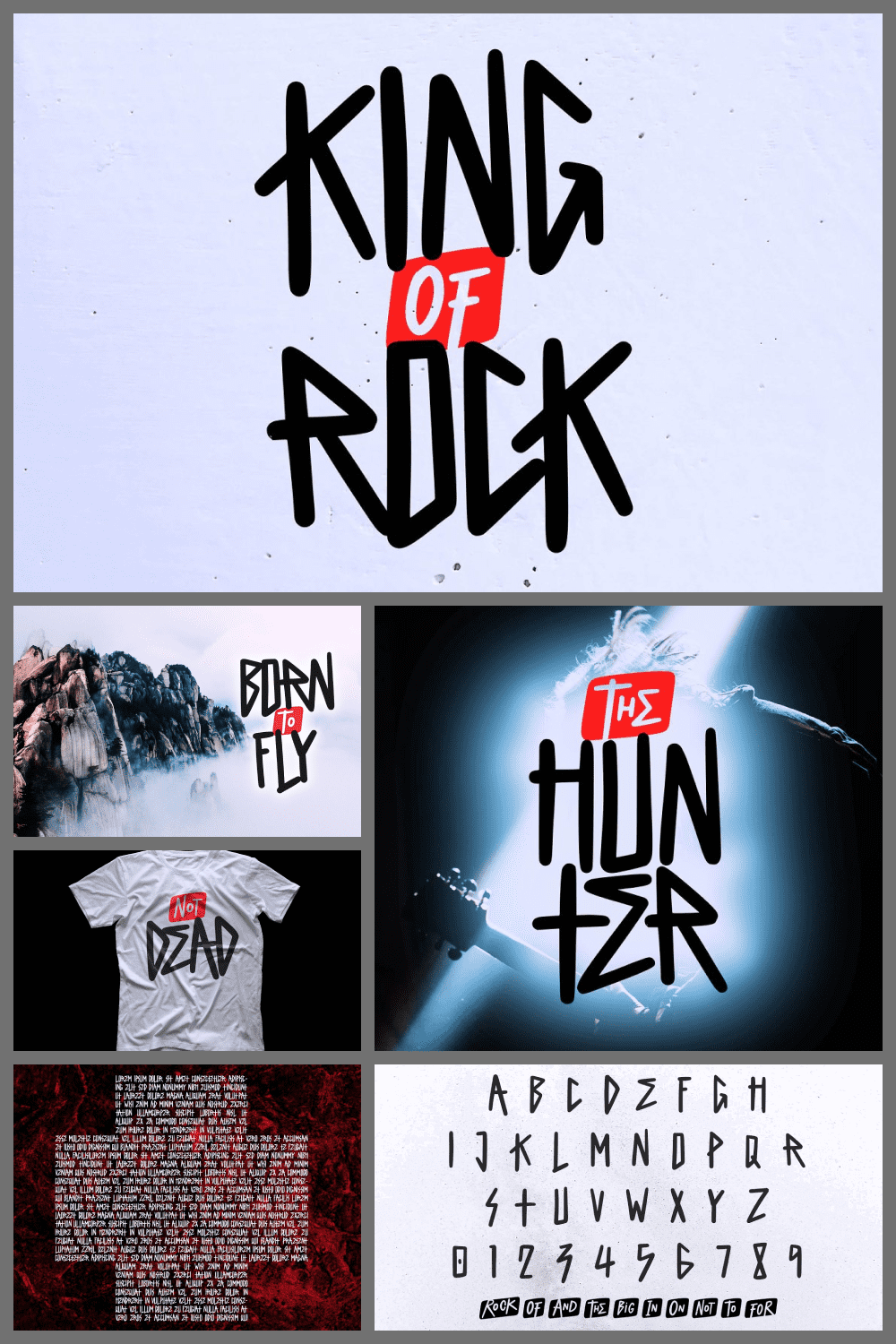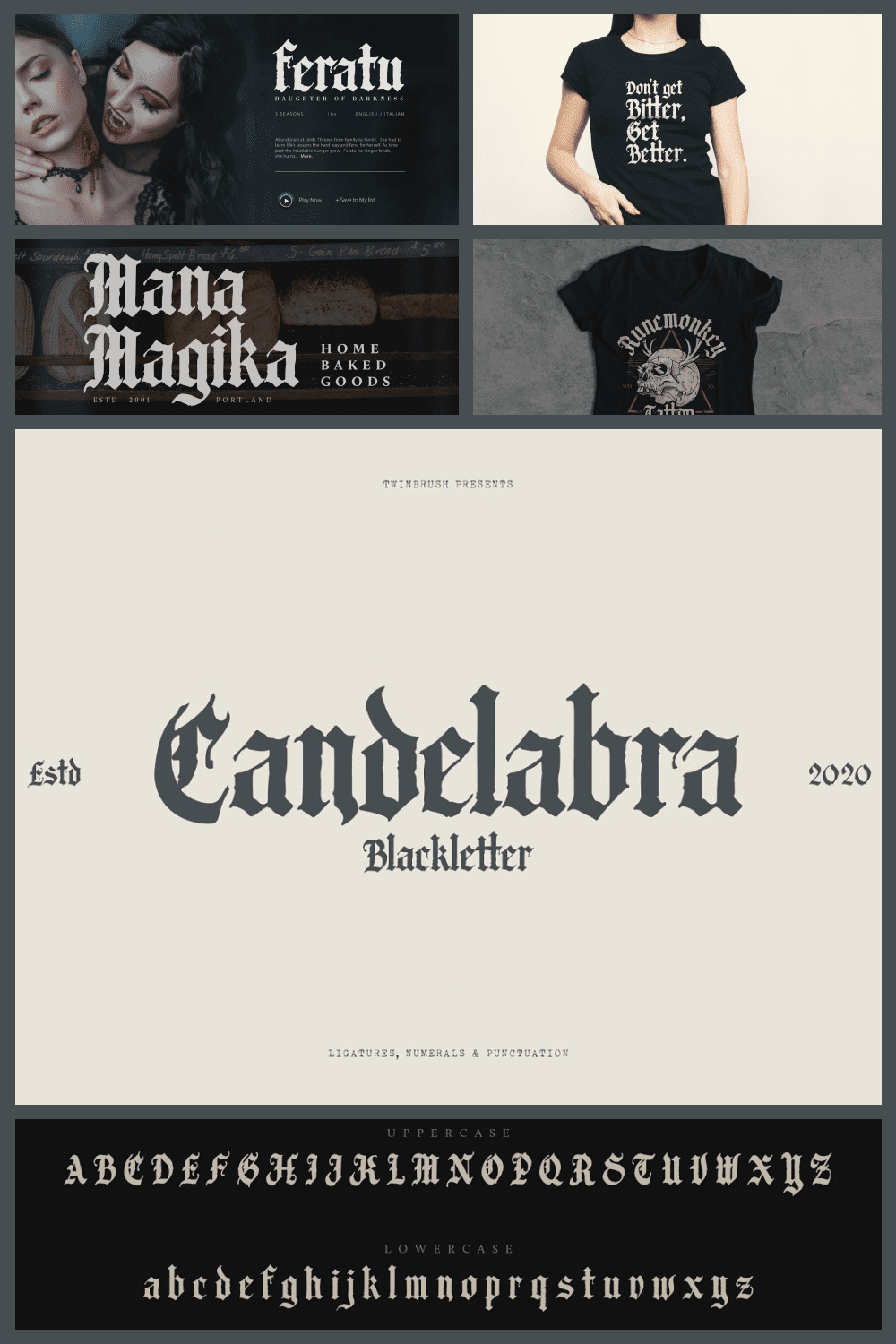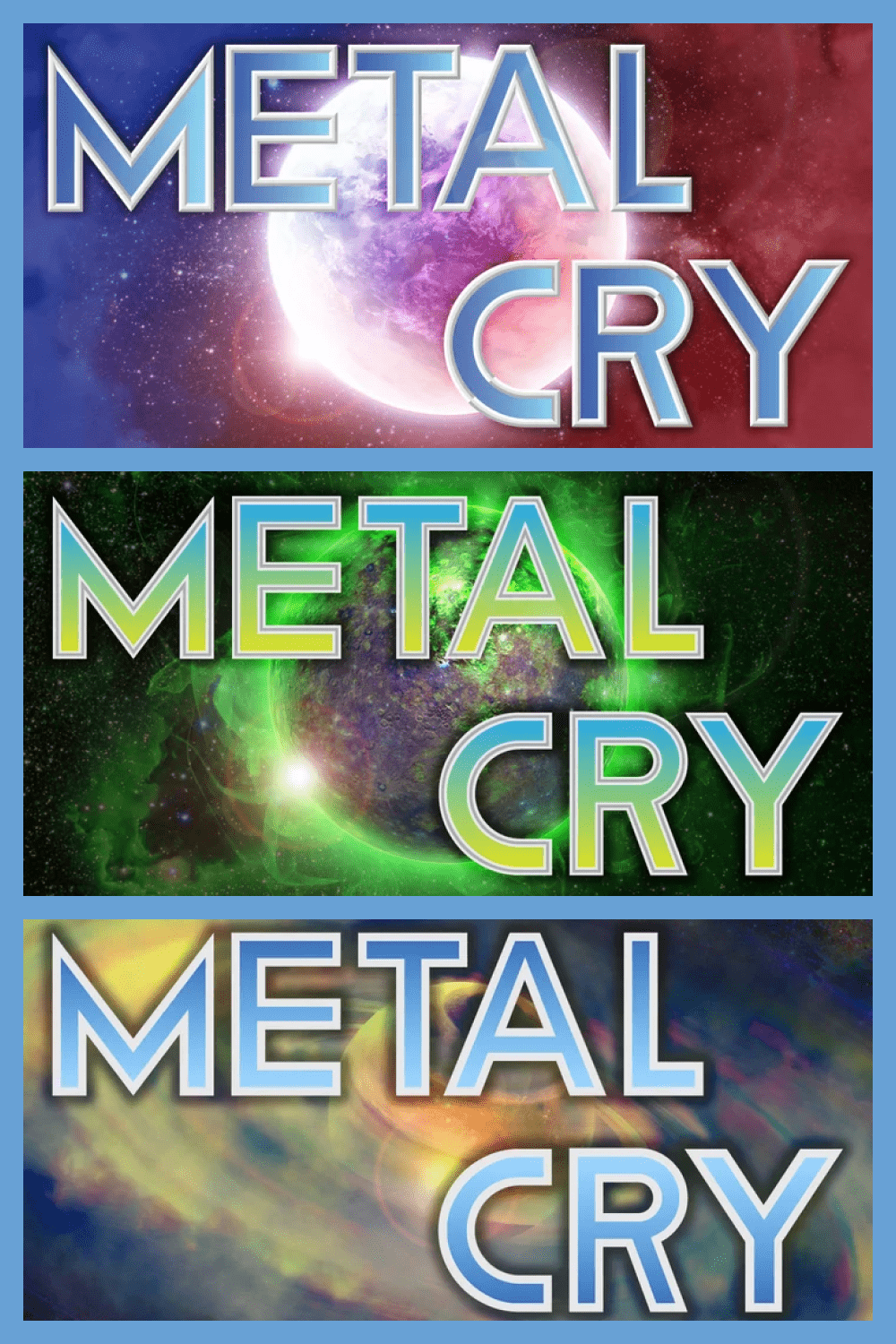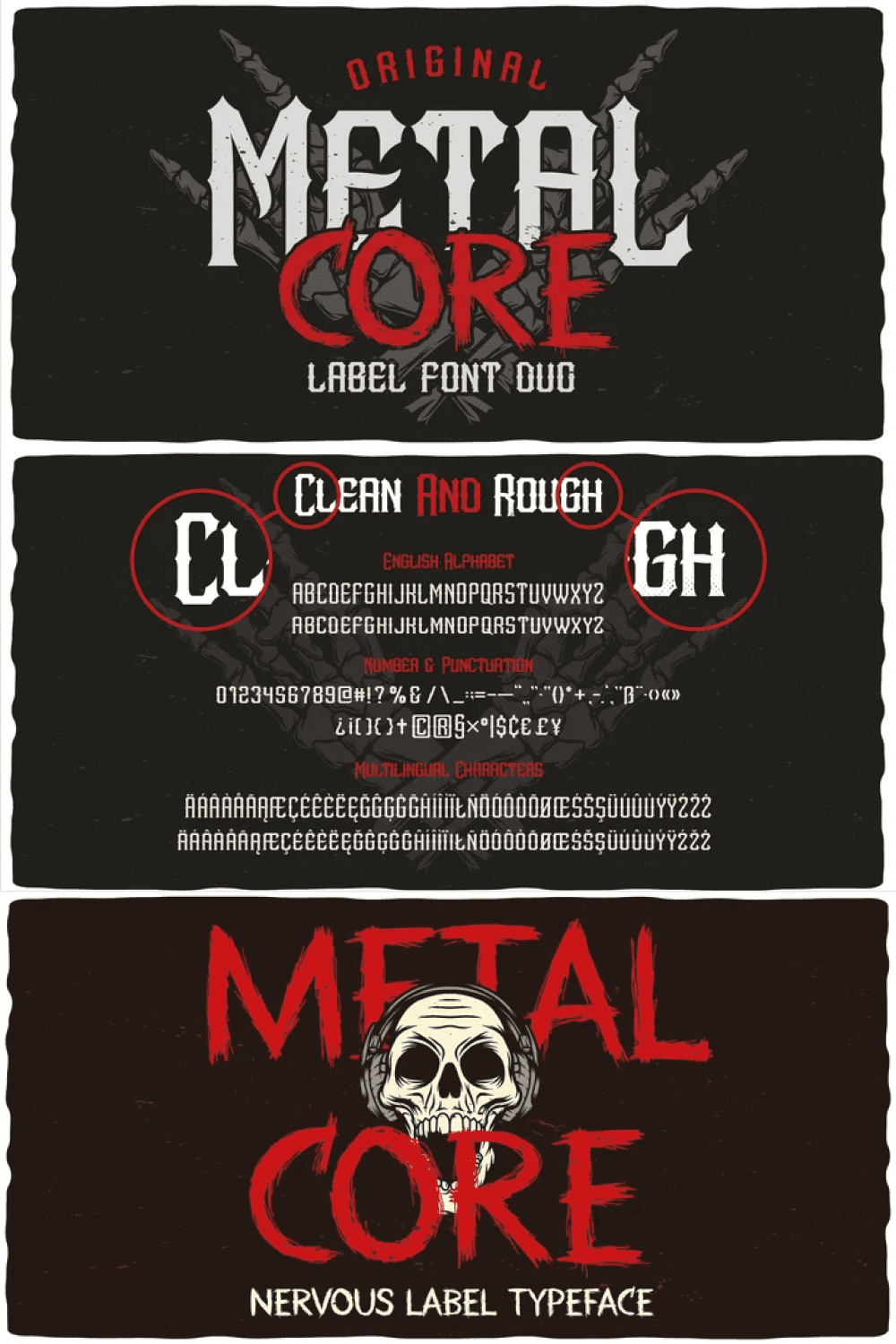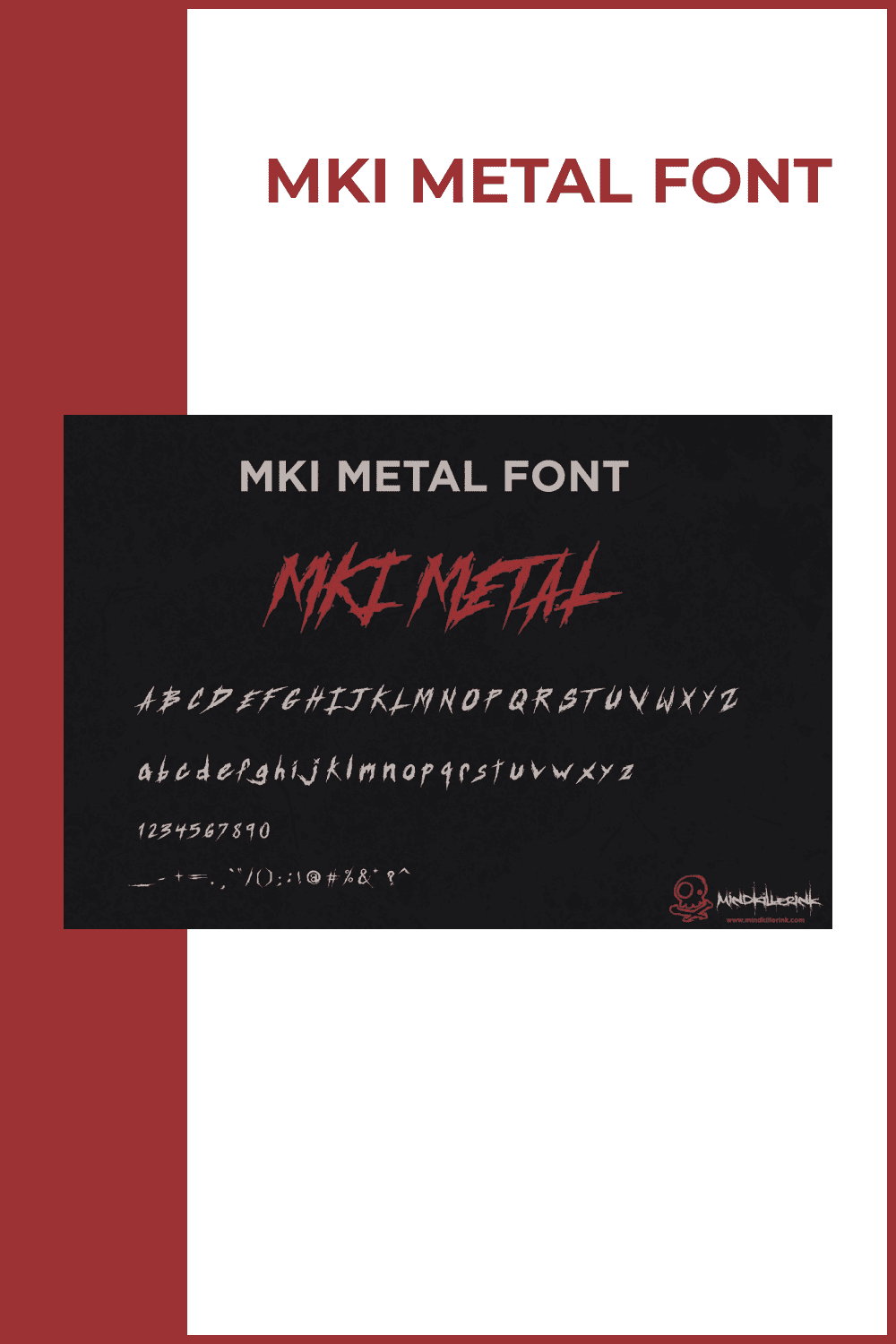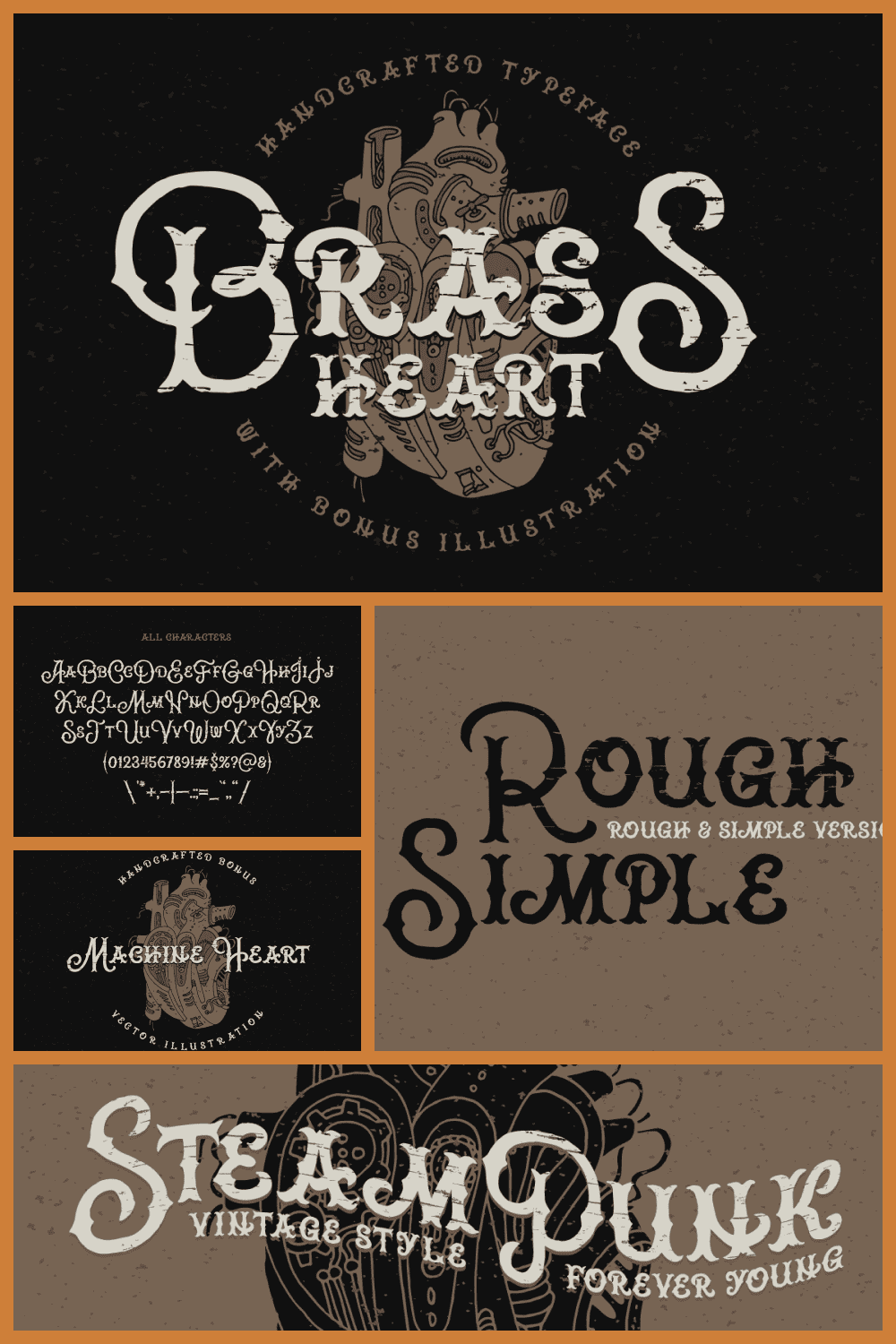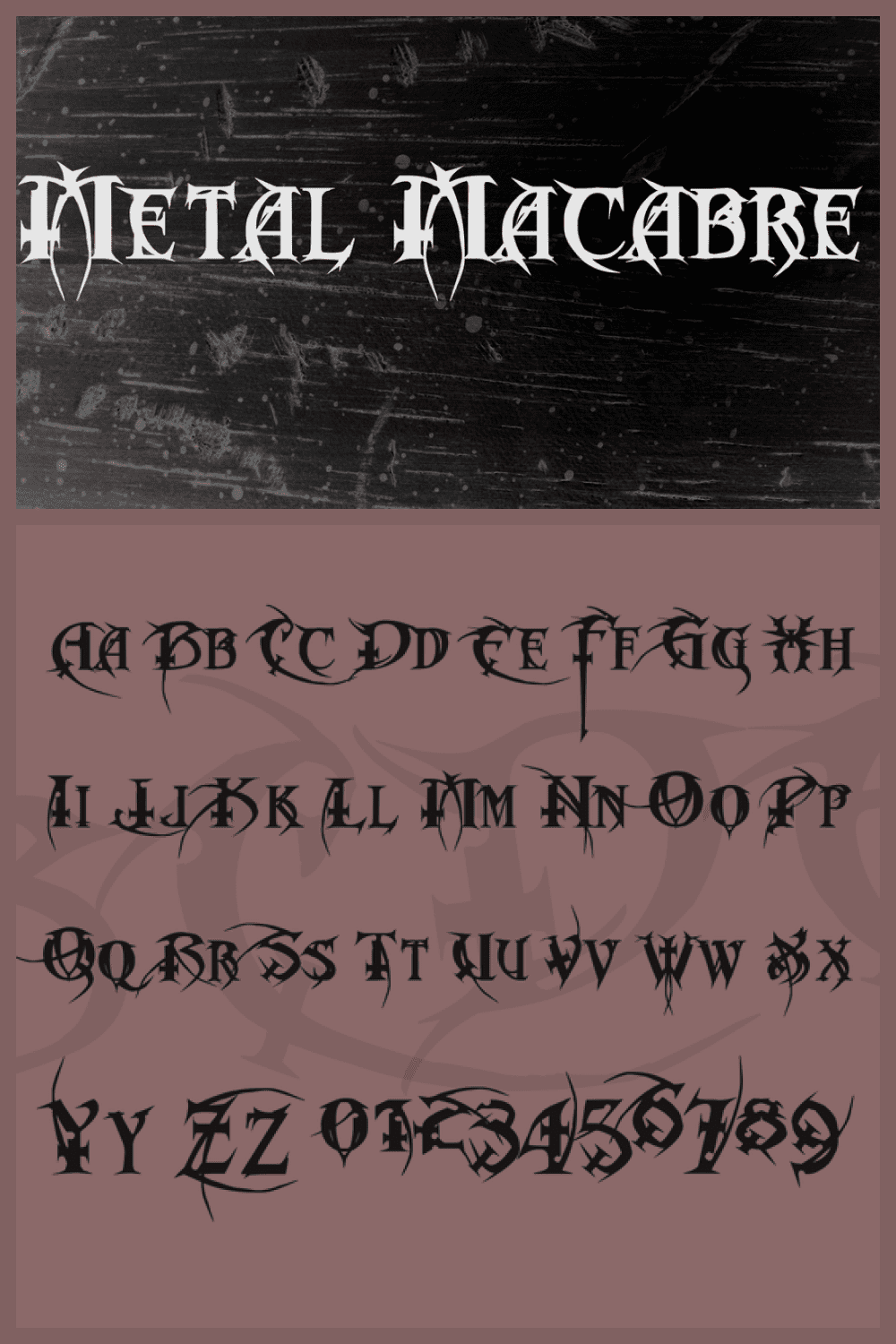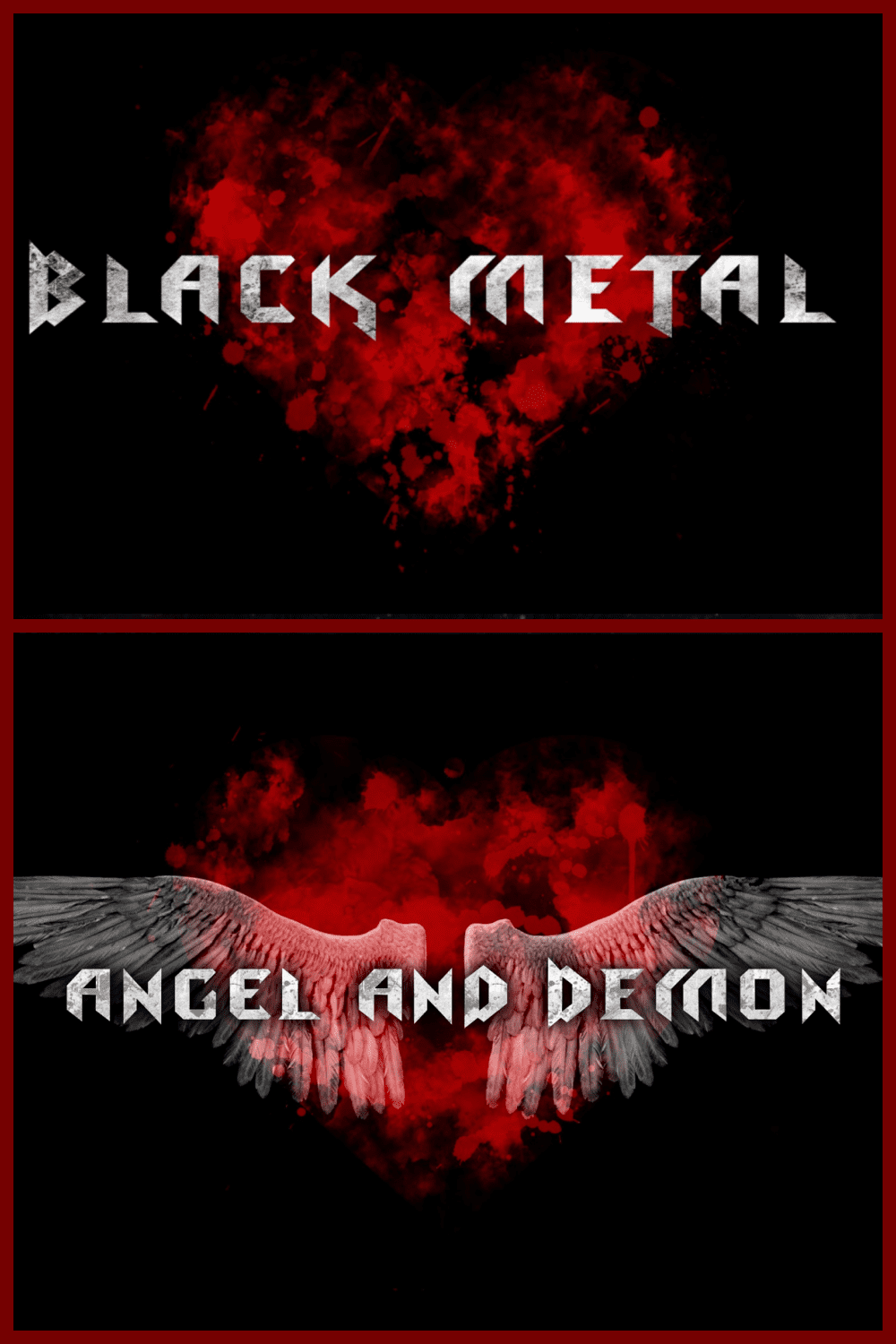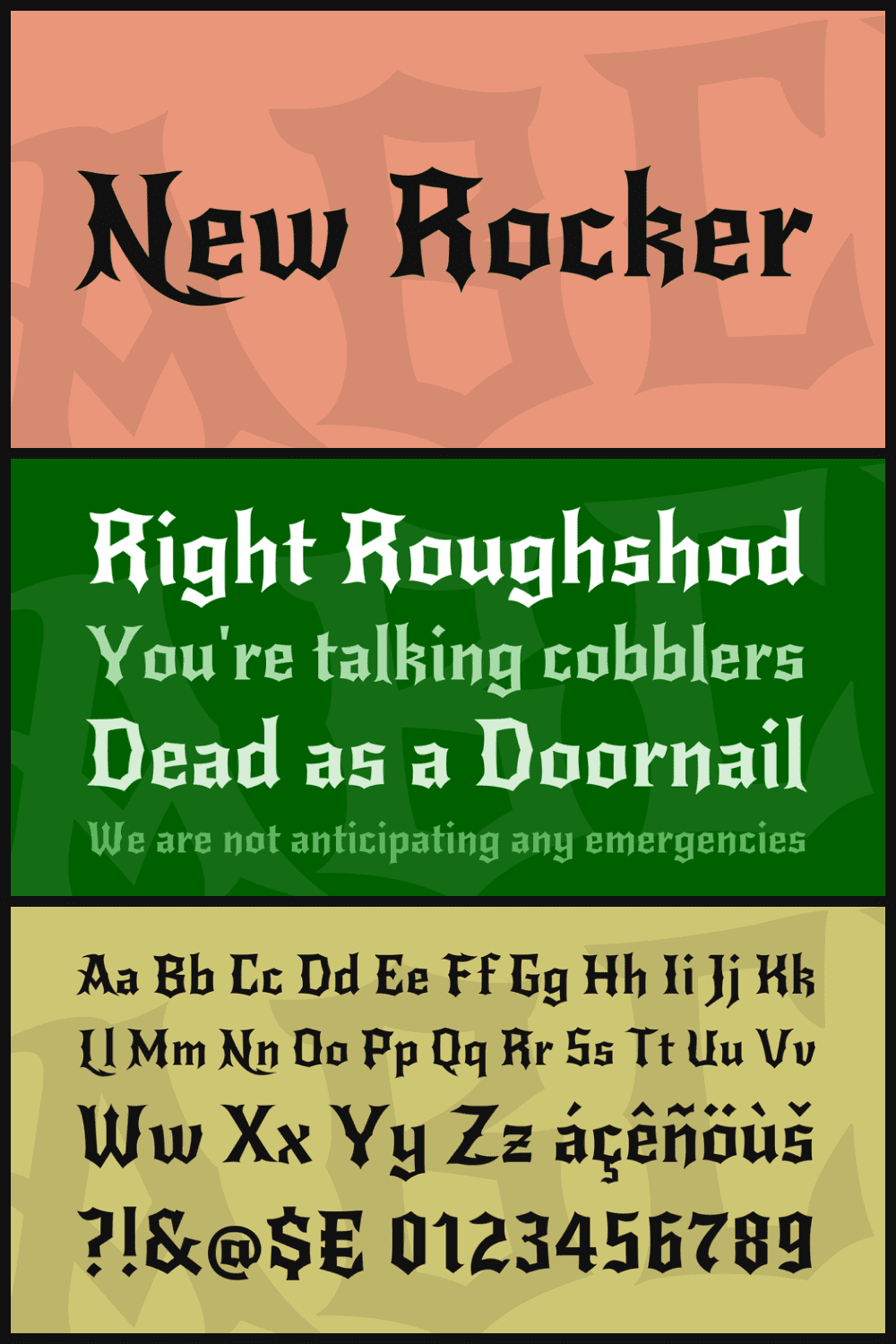
10+ Best Metal Band Fonts in 2021: Free and Premium
Metal Band Fonts. The development of digital technologies is huge these days and it influences everything. It plays an essential role for designers too: there is a necessity to constantly update one’s knowledge and skills. Moreover, one needs to keep up with the latest trends to achieve successful branding.
In order to stand out, designers often resort to the help of fonts. And among fonts, tendencies are such that you might not do without sharp and brutal ones. Metal band fonts are excessively popular. They are used for creating logos, social media pages, or even postcards.
Be as it might be, you need to keep in mind that they may not fit everywhere. Metal band fonts express confidence and creativity and should be used to magnify those features of the company or brand.
Top 5 Metal Band Fonts
Creepy Girl Font Wax Moon
Steampunk Alphabet Font
Main Stage Vintage Look Typeface
Playful Fonts – Exclusive Font Bundle
Bones Font: Bones Halloween Typeface
Best Premium Metal Band Fonts
Best Free Metal Band Fonts